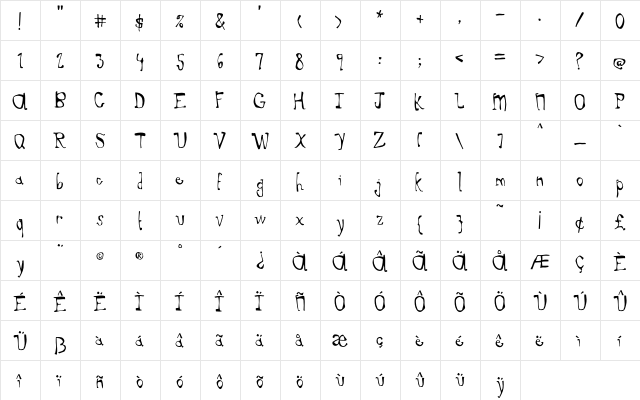
Doghouse Medium Font Preview
Doghouse Medium
Design Context for Doghouse Typeface
Doghouse is a composed and adaptable typeface that performs quietly and consistently across a wide range of design contexts.